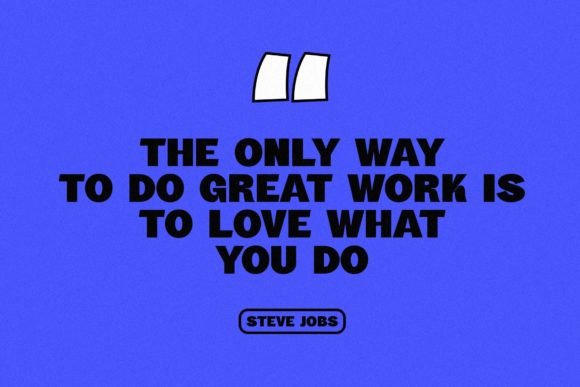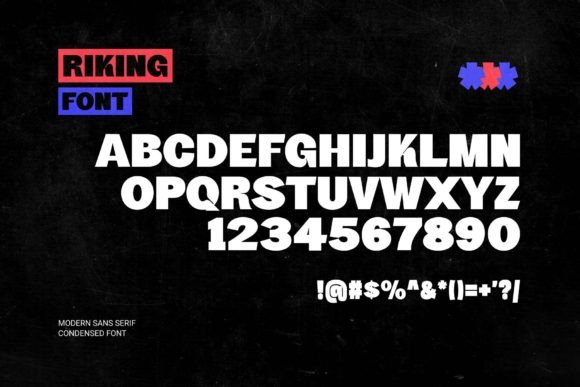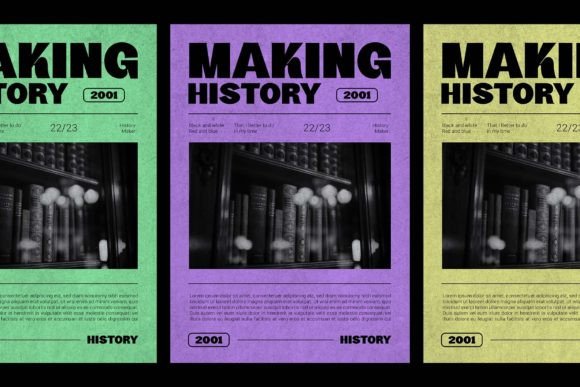
Introduction to Riking Font
Have you ever stared at a blank design canvas, searching for the perfect font to bring your creative project to life? It’s that moment when the entire design process hangs in the balance, and the right choice can make all the difference. For designers, finding the ideal font can be a challenge, but what if I told you there’s a sleek and contemporary solution waiting to elevate your work?
Enter Riking Font, a high-quality, condensed sans-serif typeface that embodies modern simplicity and sophistication. With its clean lines and compact design, Riking is the perfect design resource for projects that demand a minimalist and stylish aesthetic. Whether you’re designing logos, headlines, or digital interfaces, Riking font delivers a sharp and professional look that makes a bold statement. And the best part? It’s available for free download with a transparent background, making it a valuable asset for any designer.
Key Features of Riking Font
- High-quality design: Riking Font is a premium-quality font that offers a unique and stylish look for your creative projects.
- Transparent background: This font features a transparent background, making it ideal for use on images or videos with complex backgrounds.
- High-resolution design: Riking Font is designed at a high resolution (300 DPI), making it suitable for use in various creative projects, from print to digital media.
- Unique characteristics: Riking Font features a distinctive and modern design, with a range of styles and weights to suit different creative needs.
Honest Review: Riking Font
I recently stumbled upon the Riking Font while searching for a unique design resource for my creative project. I was impressed by its high quality and versatility. The font has a distinctive style that’s perfect for adding a touch of elegance to any design.
- ✨ High quality design that looks great in print and digital formats
- ✨ Unique and stylish aesthetic that sets it apart from other fonts
- ✨ Transparent background, making it easy to use in various design applications
- ⚠️ Limited character set, which may not be suitable for complex designs or long text
- ⚠️ May not be as readable in certain font sizes or resolutions
Overall, I’m quite impressed with the Riking Font. Its unique style and high quality make it an excellent addition to any design resource library. While it may have some limitations, I believe it’s a great option for designers looking for a distinctive and elegant font.
Introduction to Riking Font
Riking Font is a high-quality design resource that offers a unique and creative touch to your projects. With its transparent background, this font is perfect for designers who want to add an extra layer of sophistication to their work.
Common Use Cases for Riking Font
Riking Font is perfect for designers who want to add a creative touch to their projects. Some common use cases include:
- Creating stunning graphics and logos
- Designing social media posts and advertisements
- Creating professional-looking presentations and documents
- Adding a unique touch to creative projects